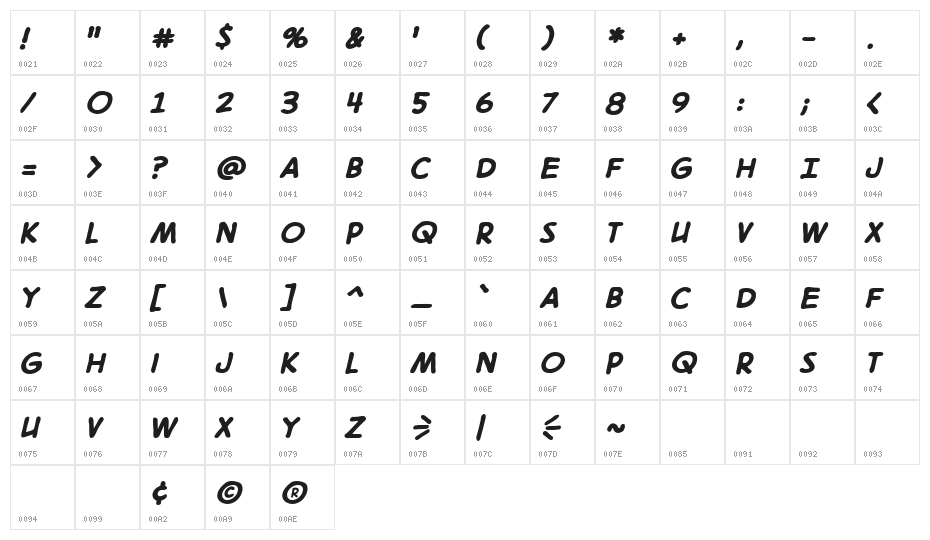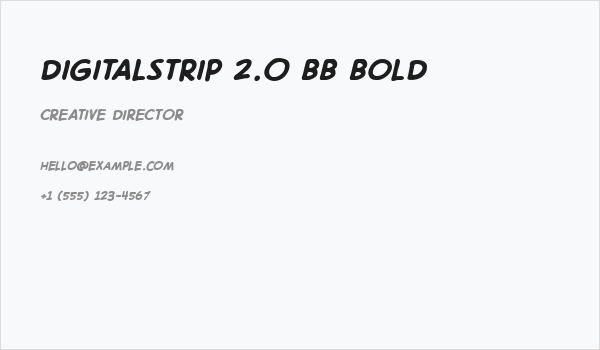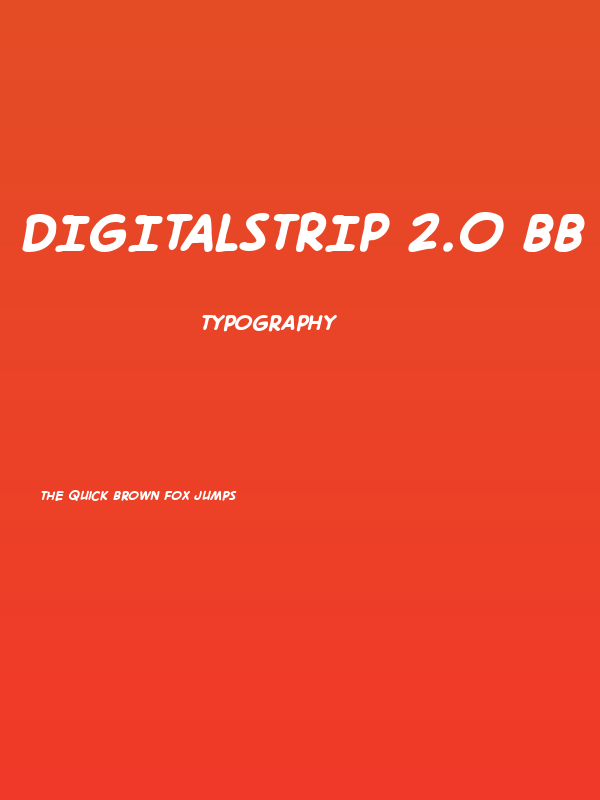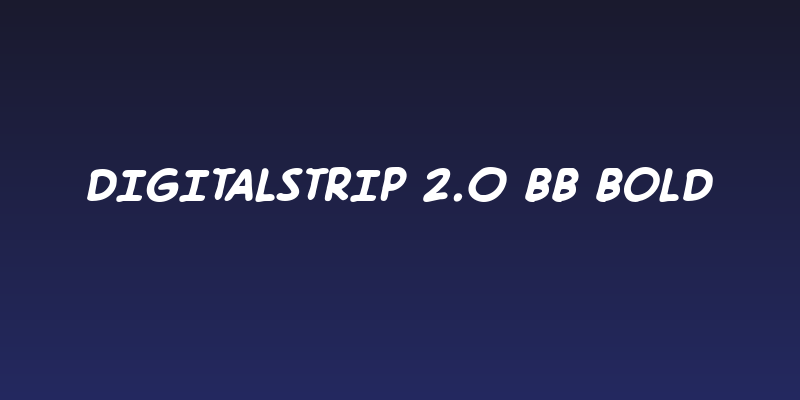
DigitalStrip 2.0 BB Bold Font
DigitalStrip 2.0 BB Bold Description
This font features a bold, playful style with rounded edges and a slightly italicized slant, giving it a dynamic and energetic appearance. The characters are uniformly thick, contributing to a consistent and cohesive look. The uppercase and lowercase letters maintain a casual, handwritten feel, making it suitable for informal and creative projects. The numbers and special characters are designed to match the overall style, ensuring versatility across different uses. The font's boldness and rounded forms make it stand out, while its readability remains intact.
| Proposed Projects | Ideal for comic books, children's books, playful branding, and creative posters. |